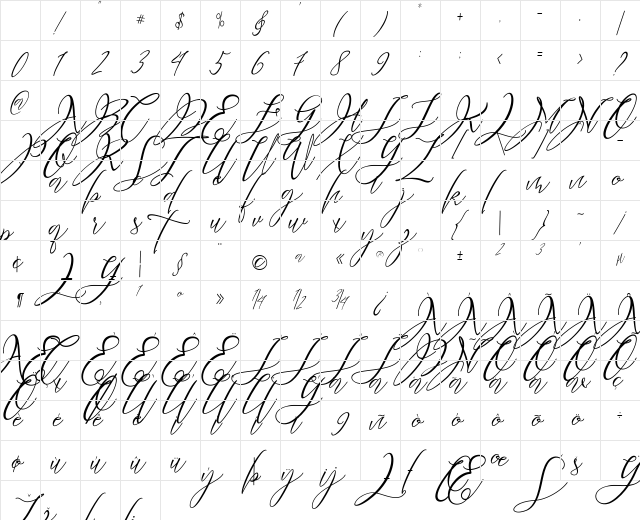
Complete Heartkything Regular glyph index. Displaying only characters natively supported by Heartkything Regular font.
Heartkything is a composed and adaptable typeface that performs quietly and consistently across a wide range of design contexts. Its slender proportions lend an understated elegance to any composition.